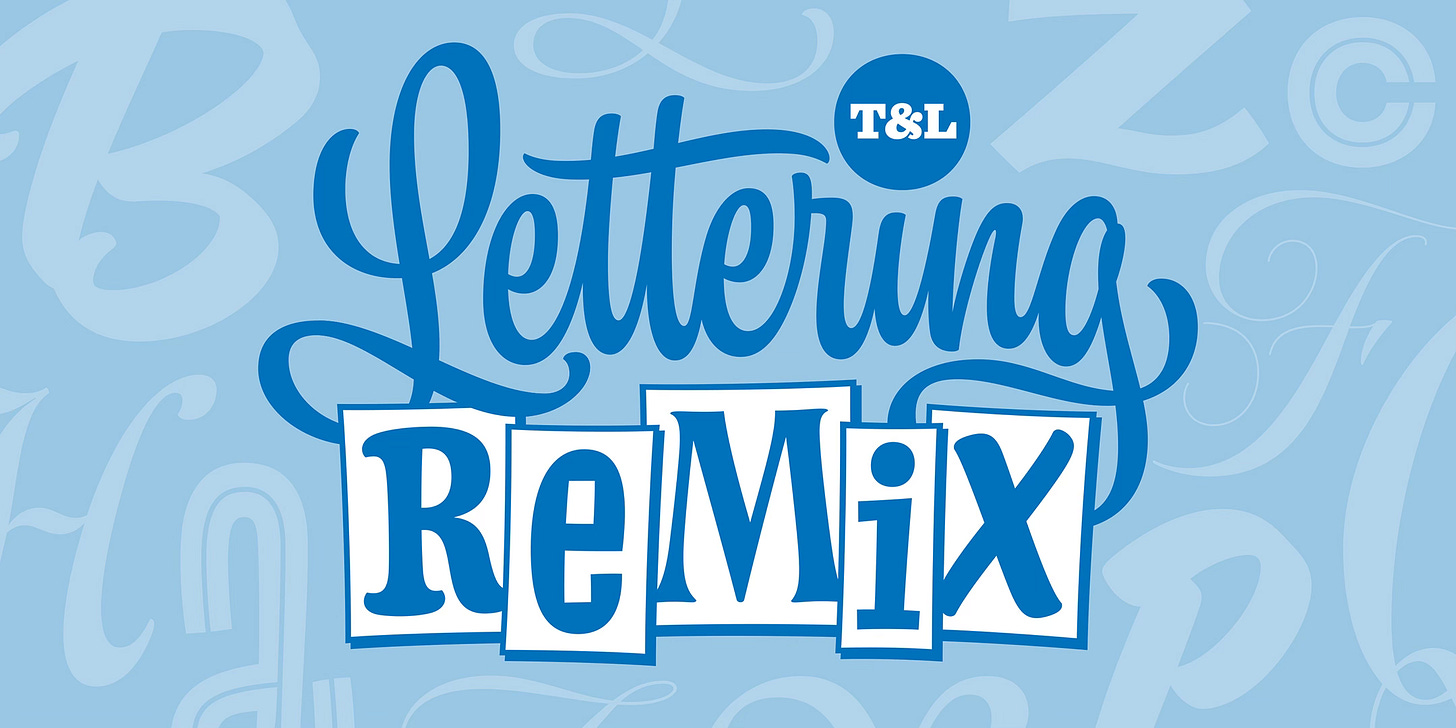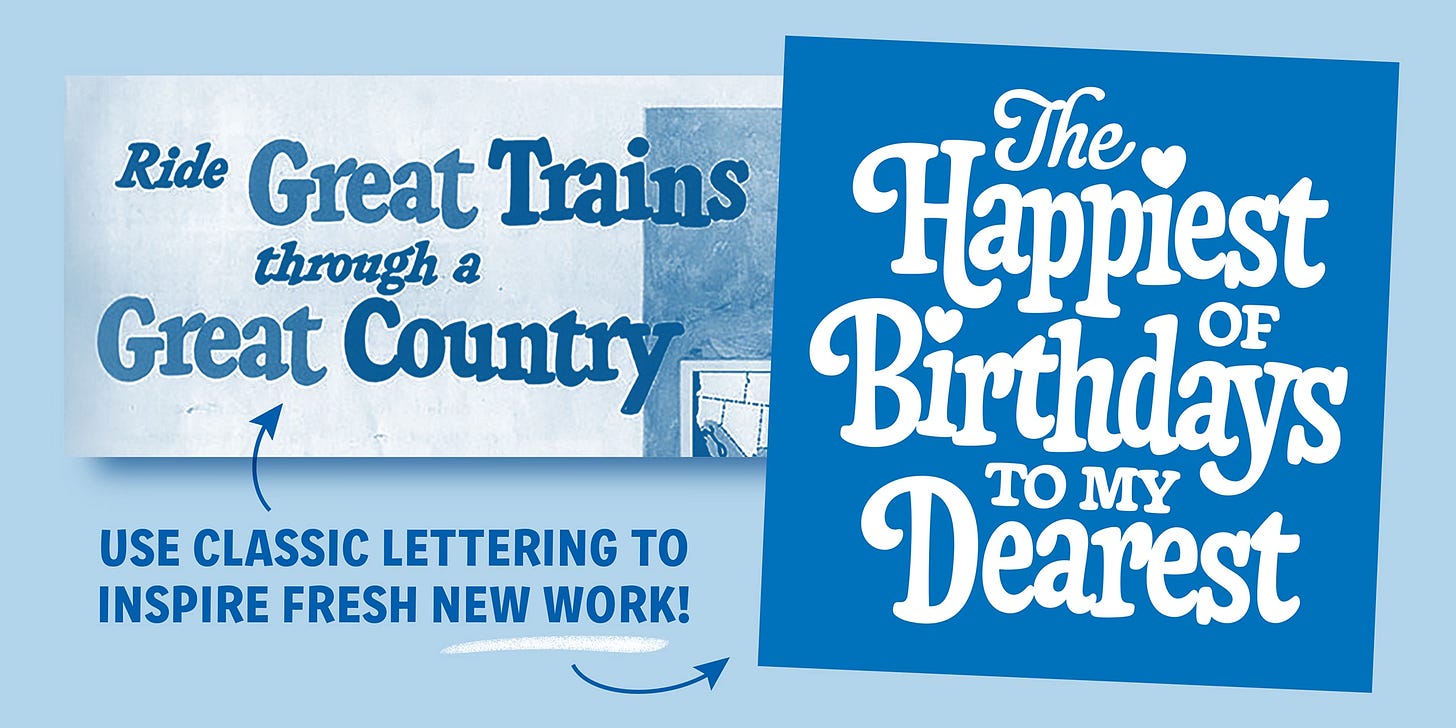
New Lettering Remix Workshop!
Unlock the hidden systems behind classic lettering to create original work
If you’re looking to inject your letterforms with some fresh ideas, join us online for our brand new Lettering Remix workshop on Saturday, June 20, 2026. Together, we’ll explore how studying and decoding existing lettering examples can uncover new creative possibilities and serve as launching pads for original logos, wordmarks, and personal projects.
Lettering Remix explores must-know techniques in the letterer’s toolkit
In this interactive, info-packed class, we’ll examine lettering from vintage packaging, signage, headlines, and other real-world inspiration to reveal the hidden systems that make them tick. You’ll learn how to analyze letterforms and identify recurring design patterns so you can remix those ideas into original work with confidence and style. Think of it as reverse-engineering classic lettering to fuel your own creative process.
Learn to deconstruct model lettering and transform it into something original